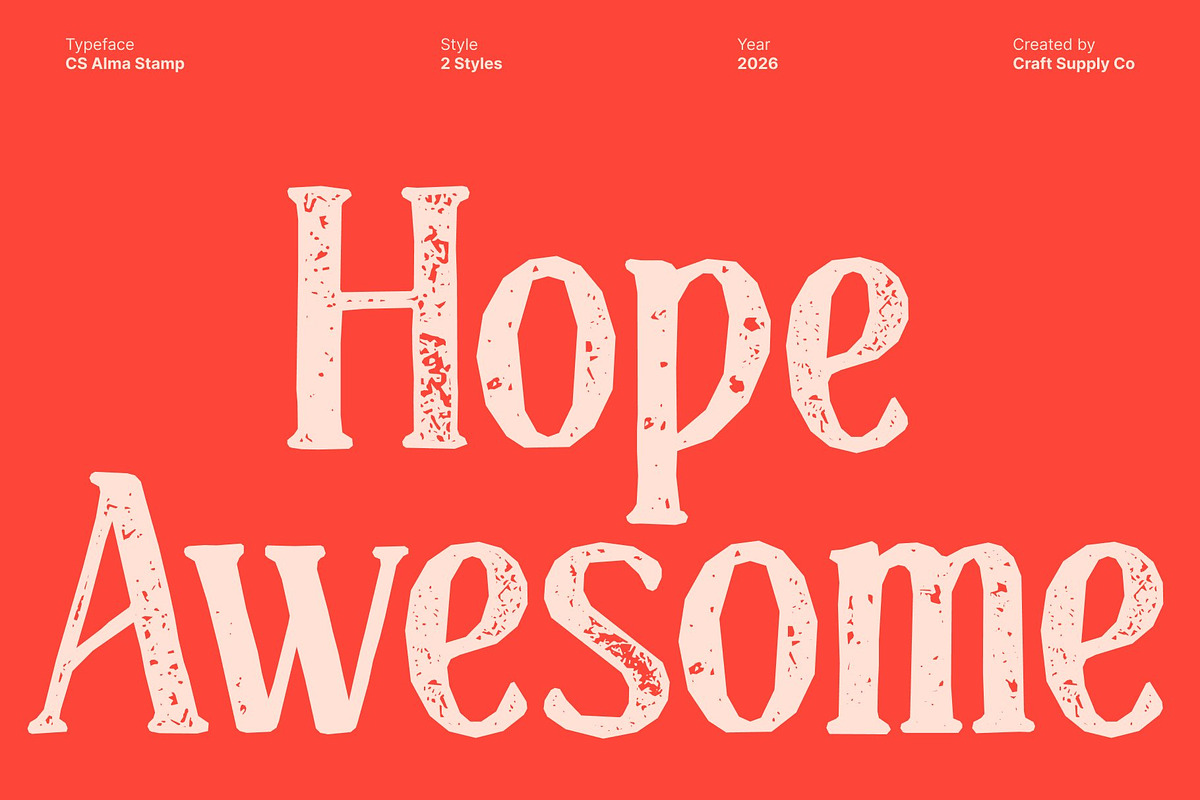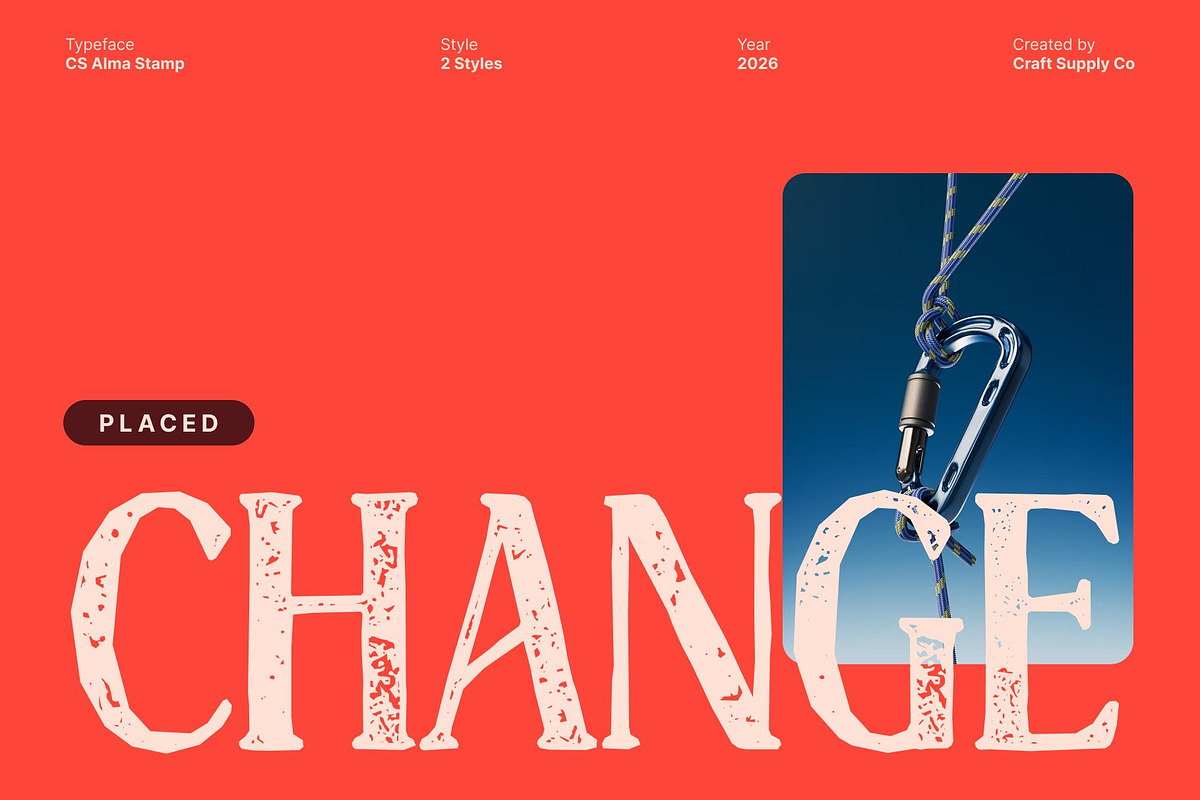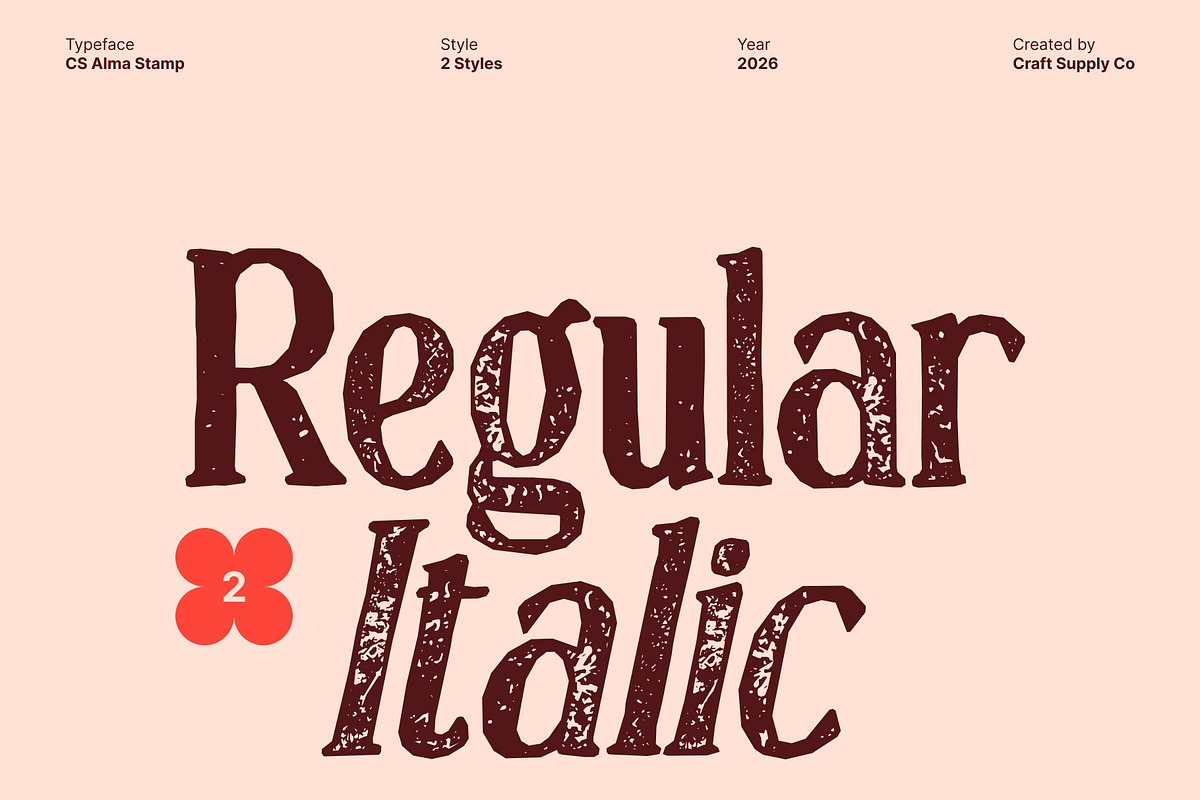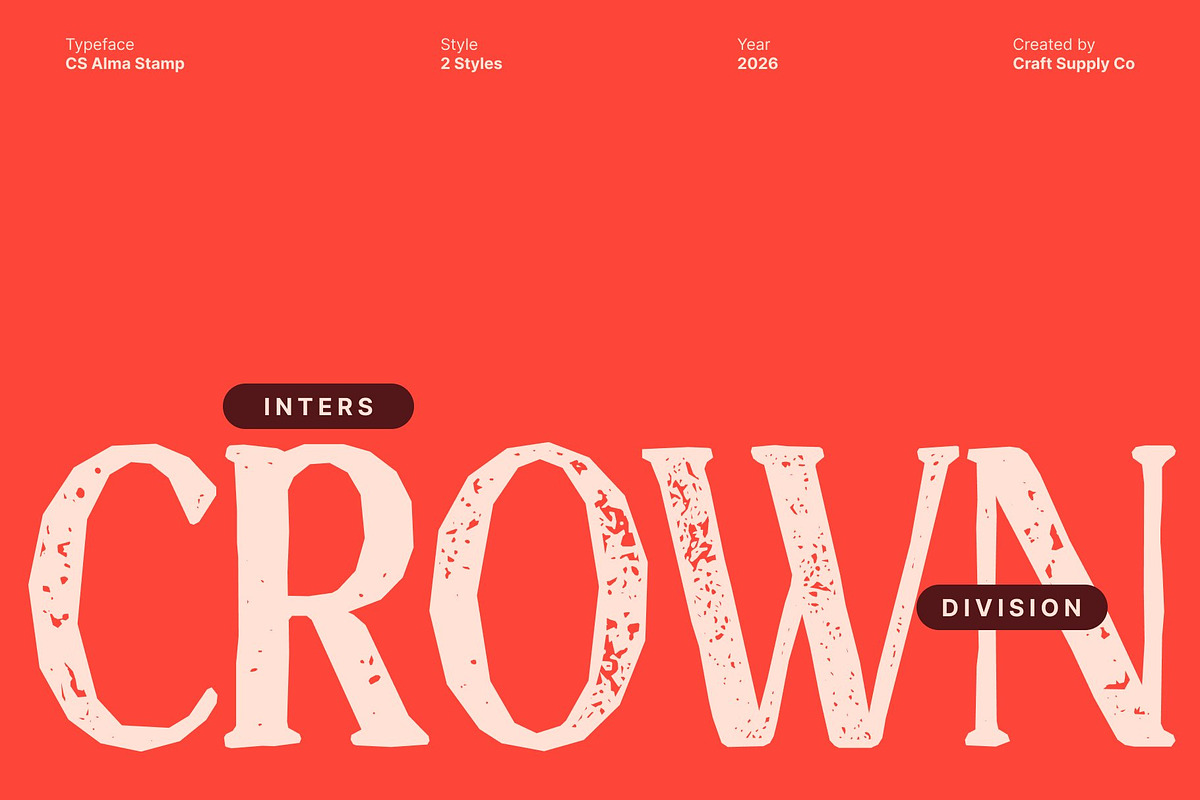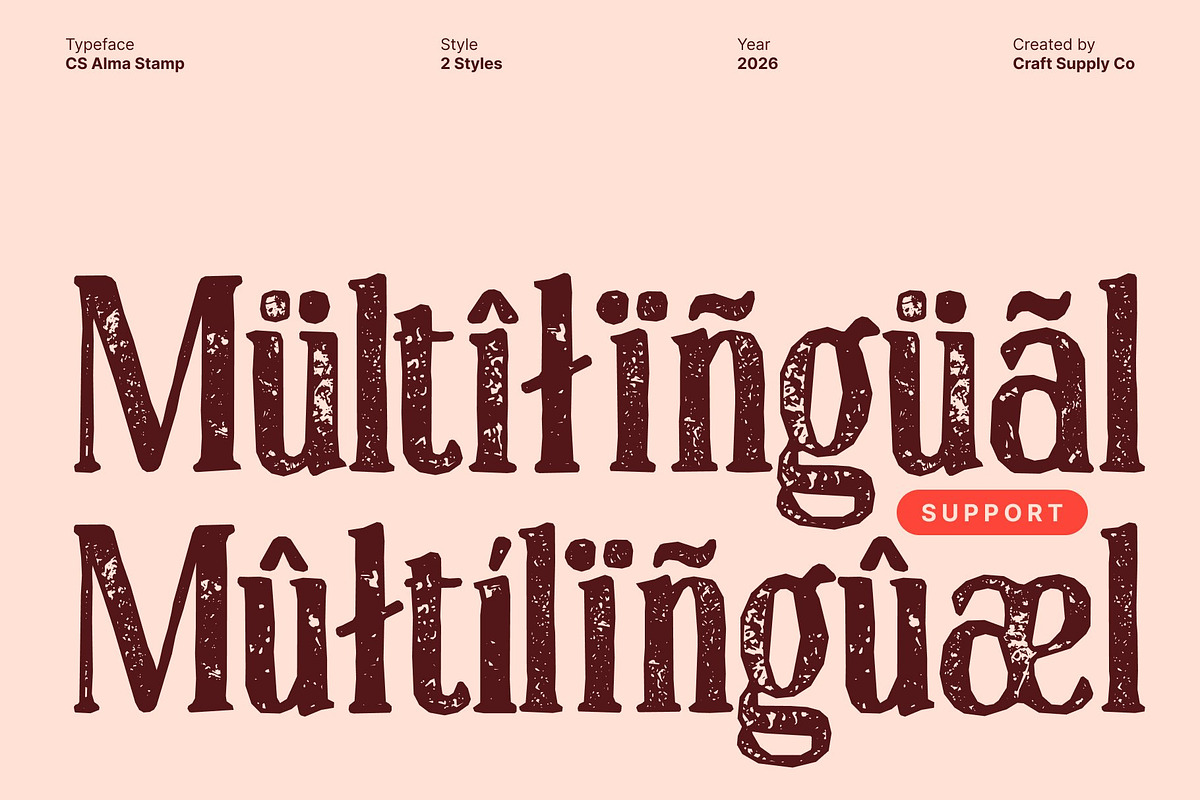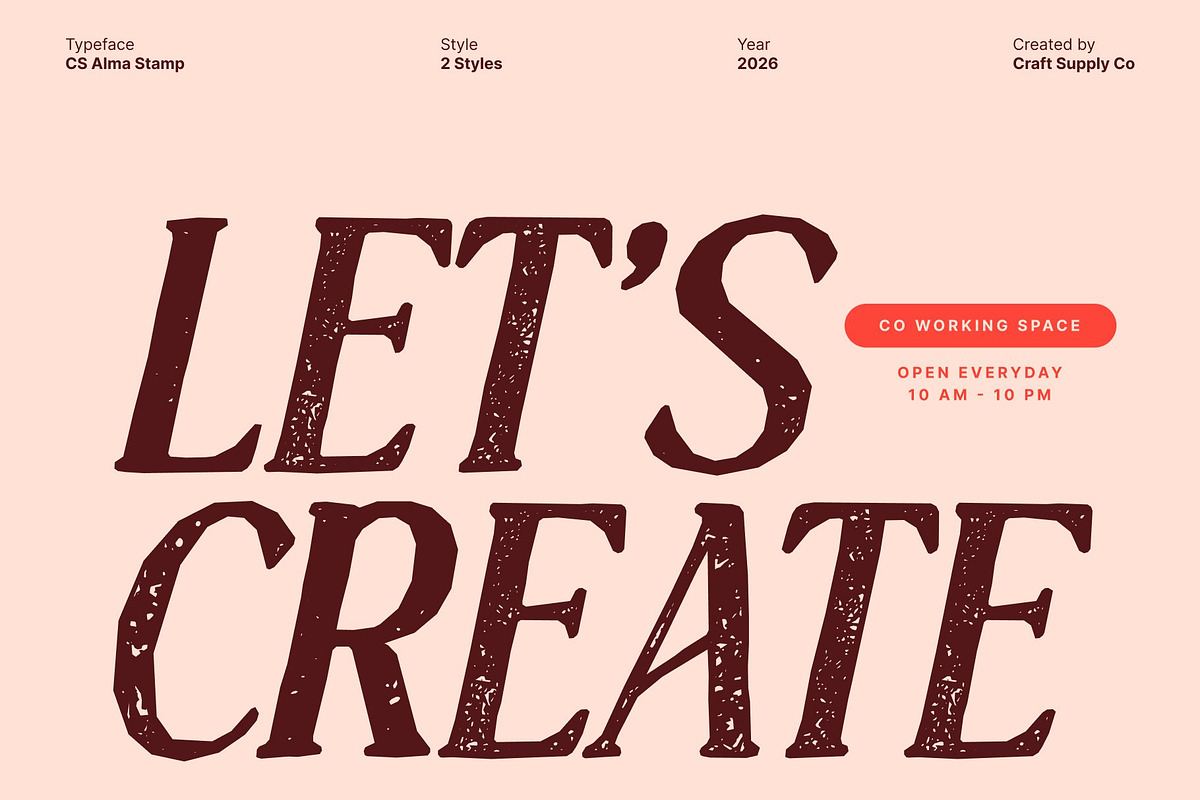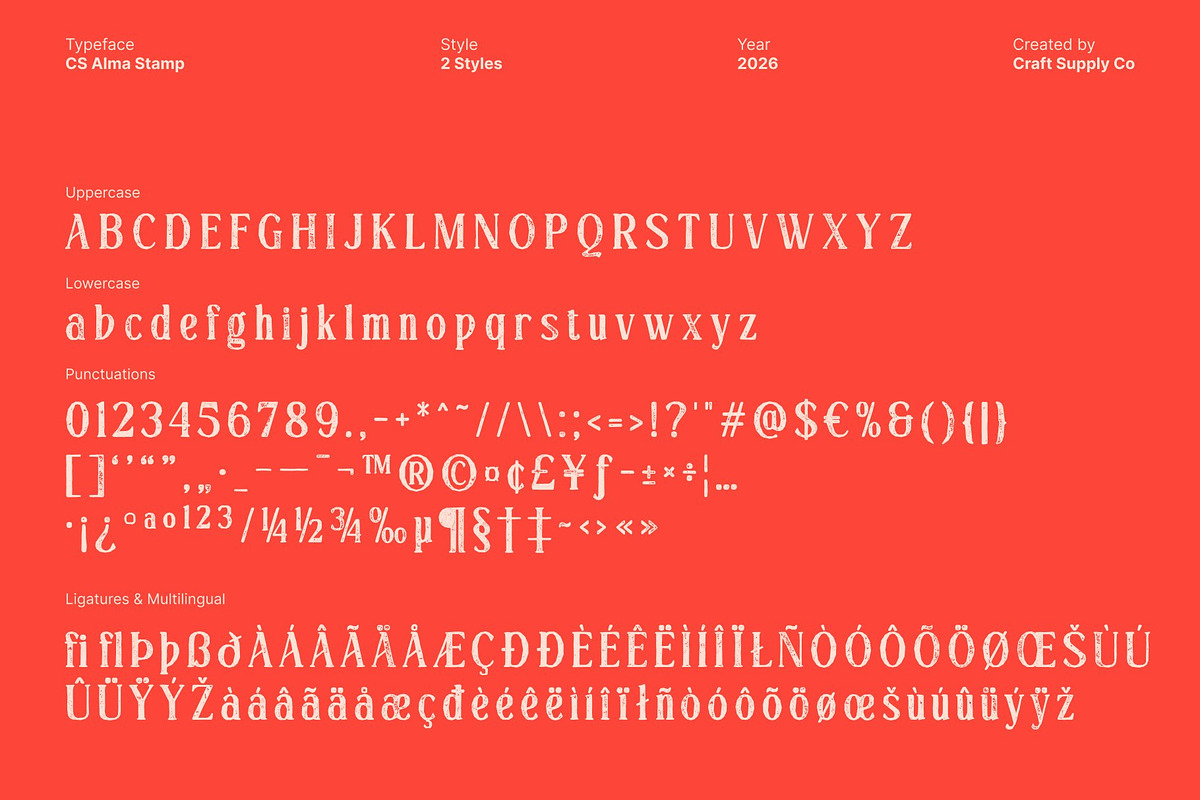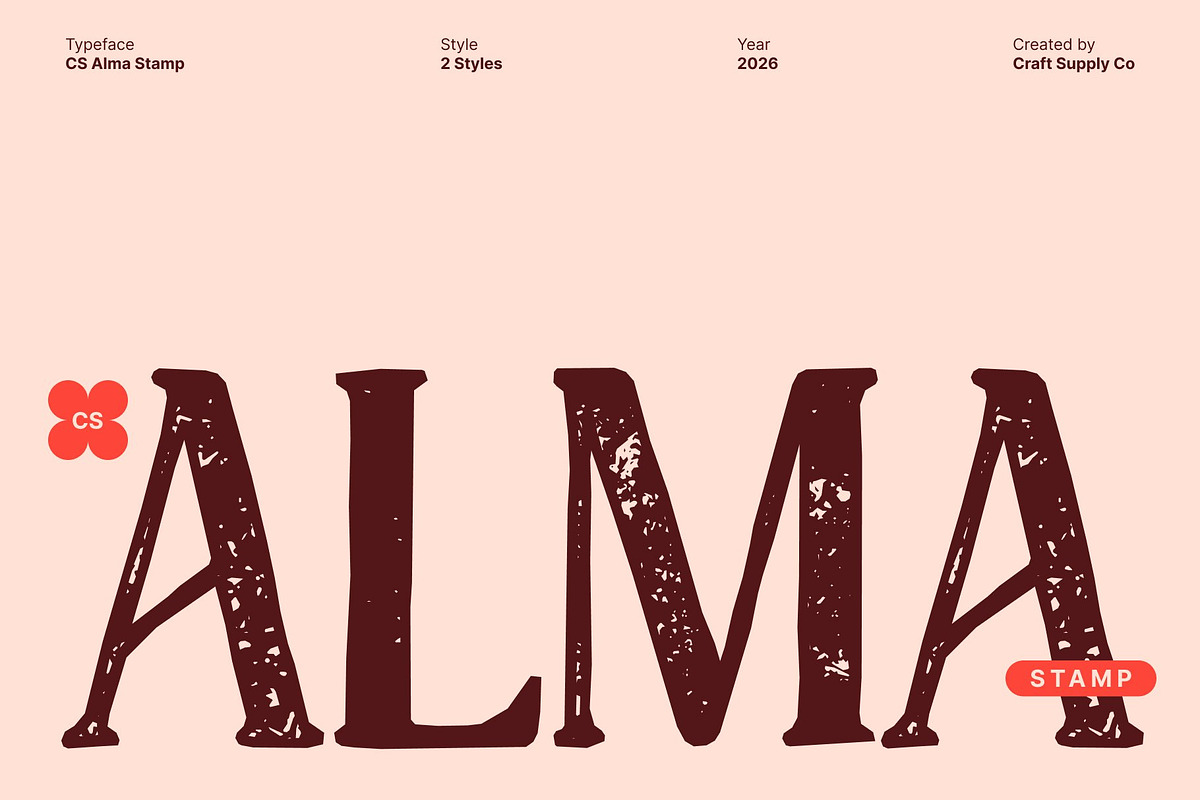
CS Alma Stamp
CS Alma Stamp – Condensed Modern Serif with Textured Contemporary Elegance Condensed Modern Serif with Refined Structure This is a condensed modern serif font crafted to express elegance through refined proportions and contemporary form. Its narrow letterforms create a strong vertical rhythm, delivering a look that feels sophisticated, efficient, and confidently modern. The condensed structure allows for impactful compositions while maintaining a polished and high-end aesthetic.
Long, Slim Serifs with Elegant Stamped Detail The font’s defining long and slender serifs bring a sense of luxury and finesse to every letter. Enhanced with a subtle stamped texture, these delicate extensions gain added depth and character without losing clarity. The result is a graceful balance between refinement and organic imperfection, elevating the font’s visual richness.
Modern Elegance with Authentic Texture Blending classic serif sophistication with contemporary shapes, this font feels fresh, stylish, and relevant. The stamped finish introduces a tactile, handcrafted quality that softens the modern precision, giving the font a distinctive presence that feels both exclusive and expressive.
Ideal for Luxury Branding and Editorial Headlines Perfect for luxury branding, fashion campaigns, posters, and editorial layouts, this font shines in headlines, titles, and refined typographic compositions. From premium packaging to magazine spreads, it delivers a confident tone of modern luxury graceful, elegant, and enriched with subtle texture.